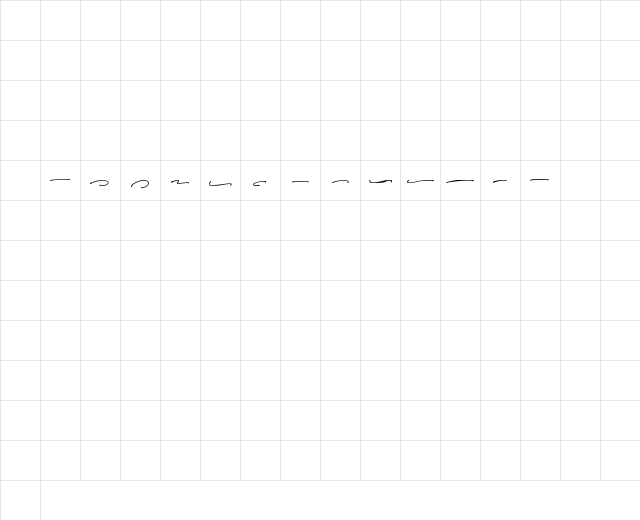
SpeedWritten Swash flows with the natural rhythm of handwritten lettering, making it ideal for designs that call for warmth and personal expression.
Font Pairing: Combine SpeedWritten Swash with a simple geometric sans for maximum contrast - the tension between flowing curves and clean structure is a classic typographic pairing.
Pro Tip: Use SpeedWritten Swash for short runs of text - names, titles, or taglines. Extended body copy in script faces tires the eye quickly.